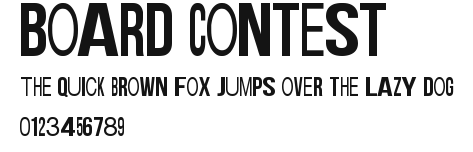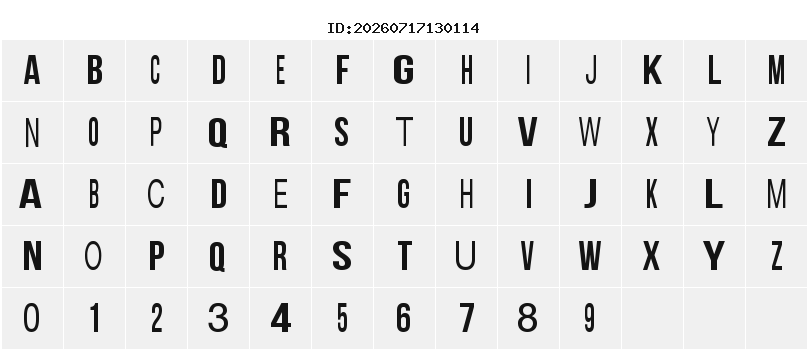
Board Contest Preview
• Font Name: Board Contest
• Full Font Name: Board Contest
About Board Contest.ttf
Board Contest.ttf is a modern, elegant sans-serif font designed for ultimate readability and visual harmony. Perfect for branding, headlines, web design, and print materials.